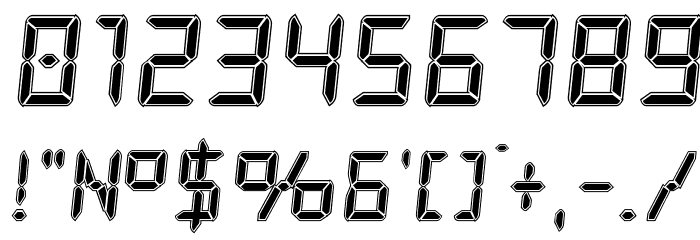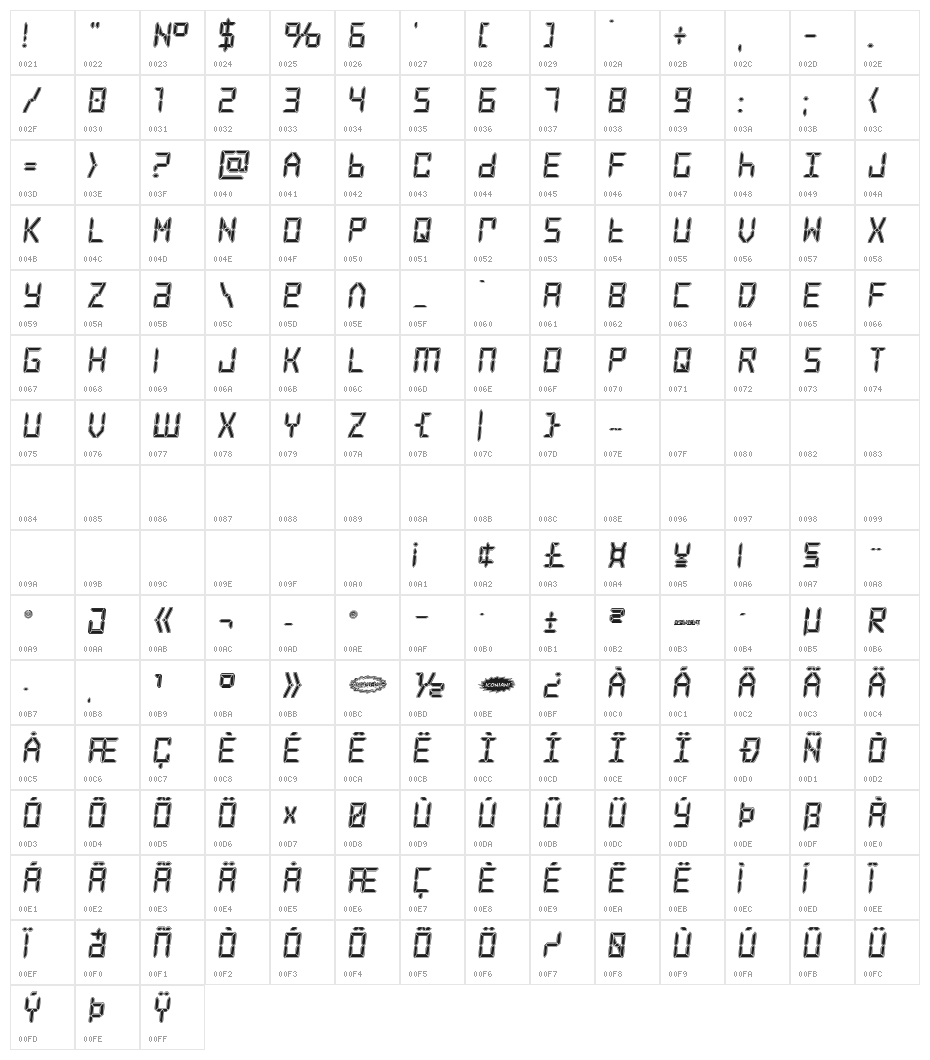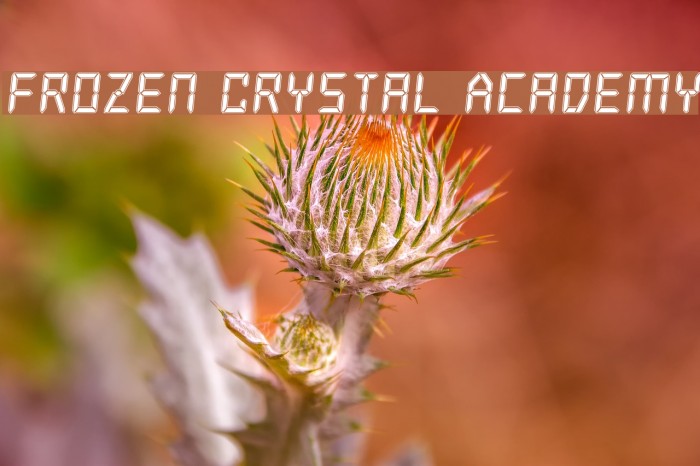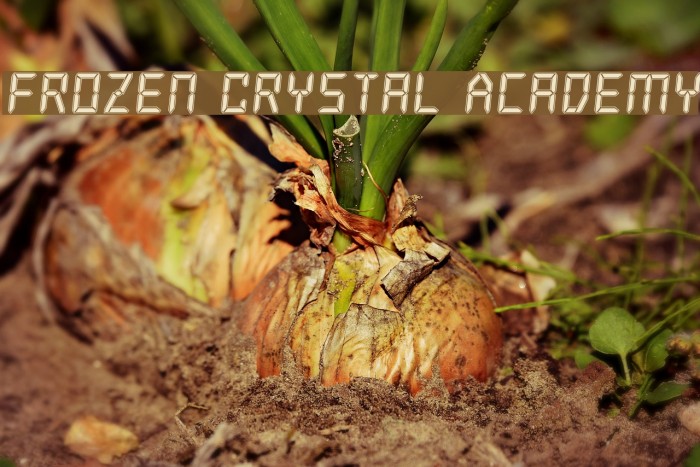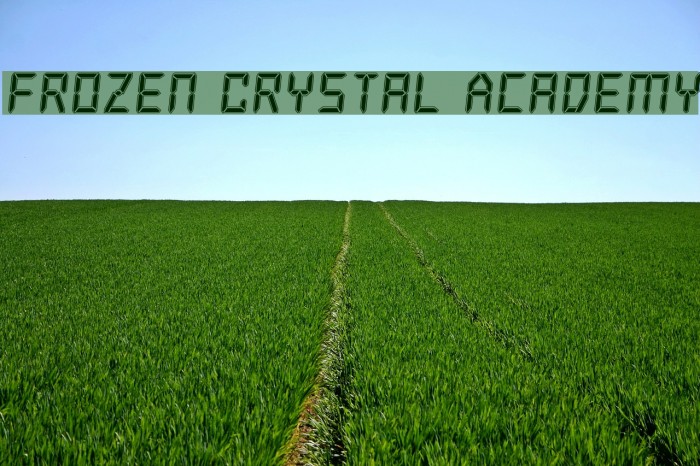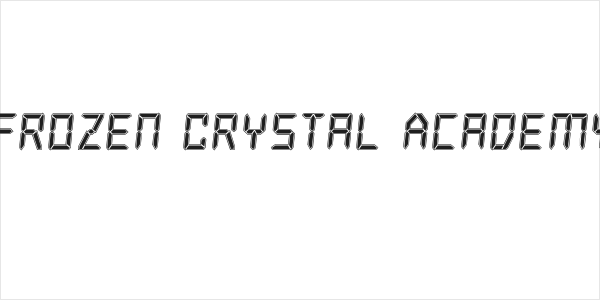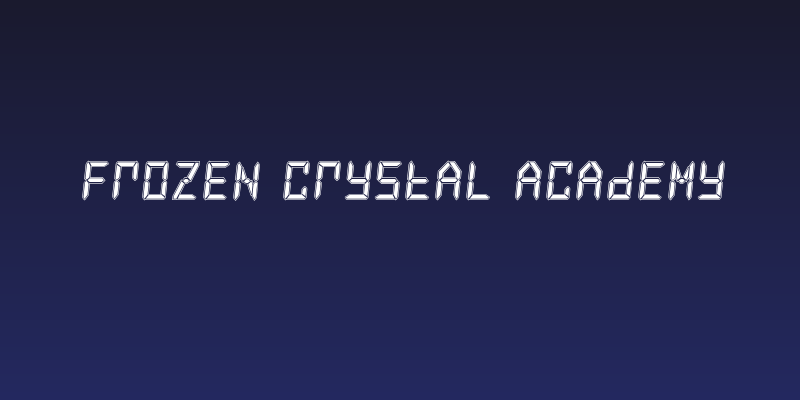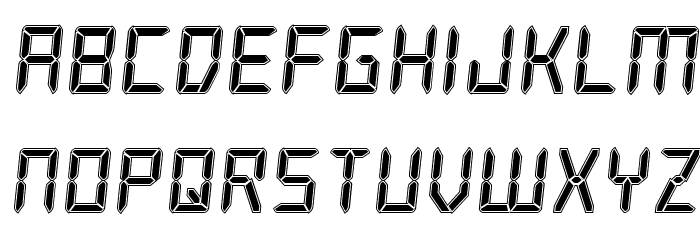
Frozen Crystal Academy Font
Frozen Crystal Academy Description
This font features a digital, futuristic style reminiscent of LED or LCD displays. Each character is constructed with a geometric, angular design, giving it a high-tech and modern appearance. The letters and numbers are composed of straight lines and sharp angles, creating a sense of precision and clarity. The font maintains a consistent stroke width throughout, which contributes to its uniform and structured look. The characters are well-spaced, ensuring readability even at smaller sizes. This font is ideal for projects that require a contemporary and technological aesthetic, such as digital interfaces, tech branding, or sci-fi themed designs.
| Proposed Projects | Ideal for digital interfaces, tech branding, sci-fi themes, and modern advertising. |